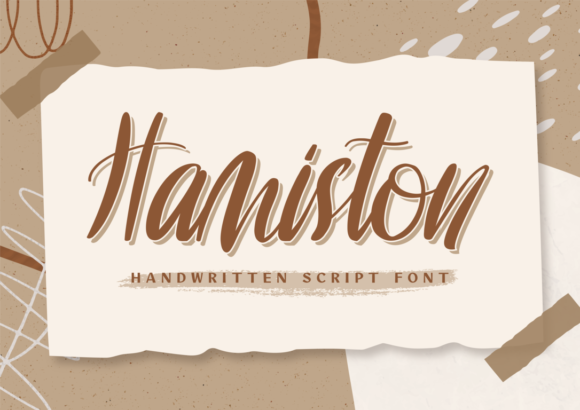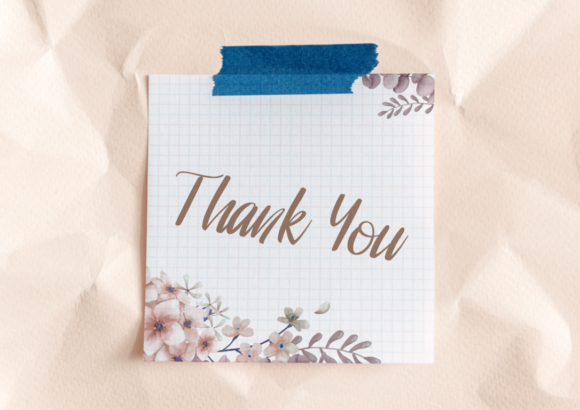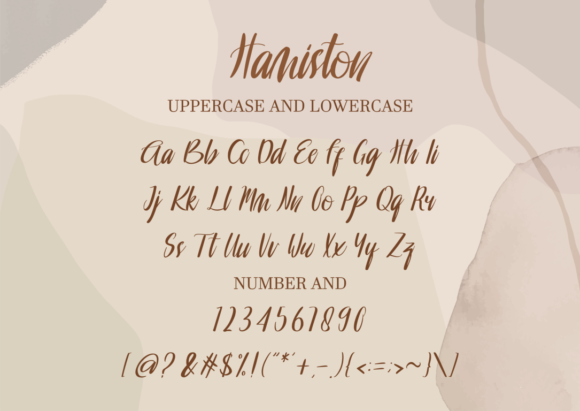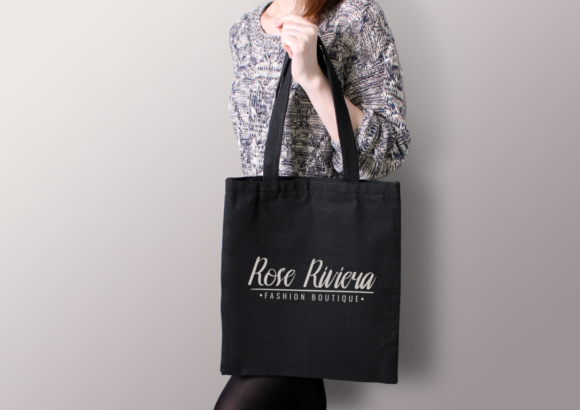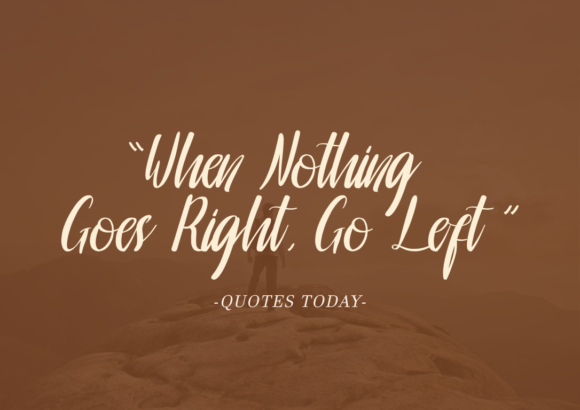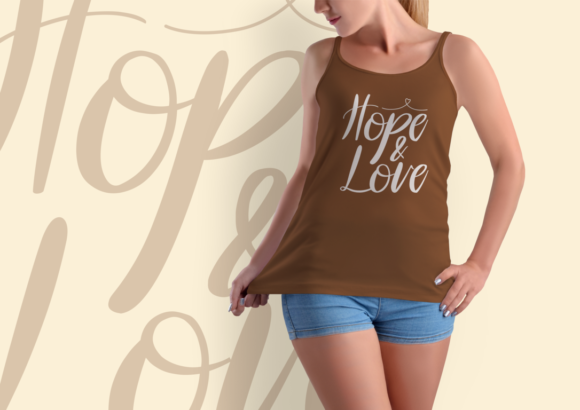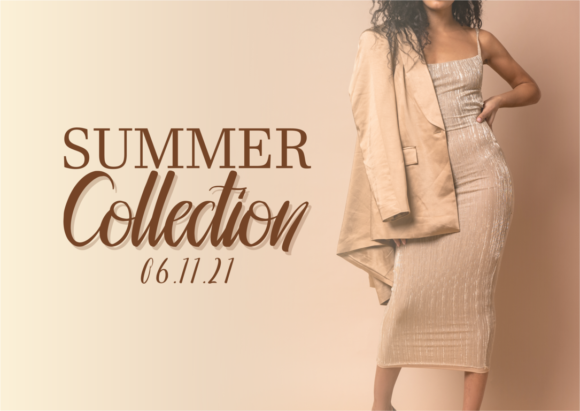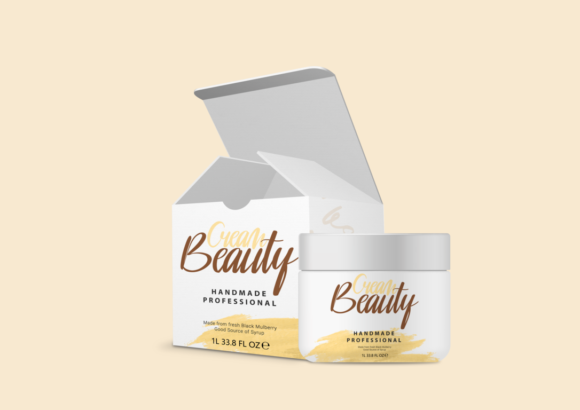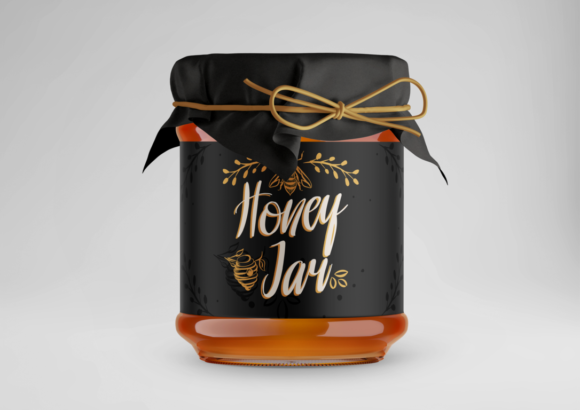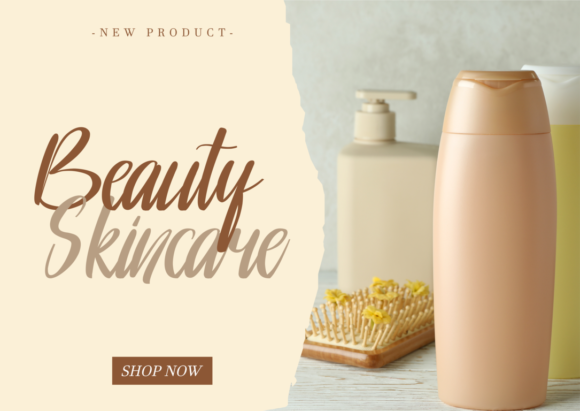
Script Fonts Hamiston Font 0 145 FacebookTwitterPinterestWhatsApp 1 of 10 Hamiston Font Poster 2... Hamiston Font Poster 3... Hamiston Font Poster 4... Hamiston Font Poster 5... Hamiston Font Poster 6... Hamiston Font Poster 7... Hamiston Font Poster 8... Hamiston Font Poster 9... Hamiston Font Poster 10... About Hamiston Font Hamiston is a sleek and elegant handwritten font that gives off cool, exquisite vibes. Add it to your most creative projects, and watch how it makes them come alive! DOWNLOAD NOW